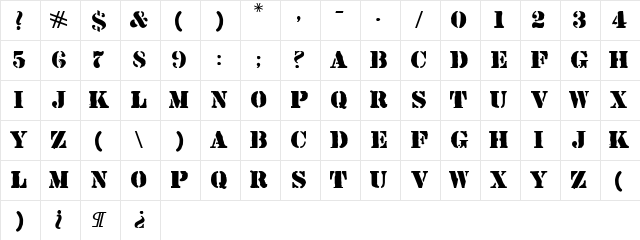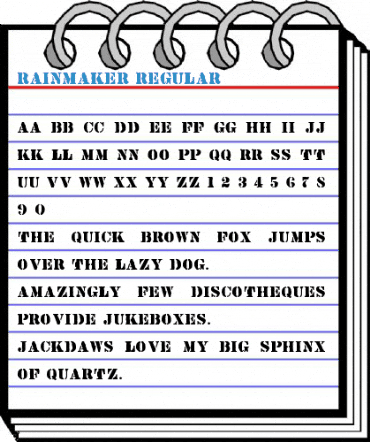
Complete Rainmaker Regular glyph index. Displaying only characters natively supported by Rainmaker Regular font.
Rainmaker is a composed and adaptable typeface that performs quietly and consistently across a wide range of design contexts.
Pro Tip: Use Rainmaker in both headline and body roles to test its range before committing to a single application.